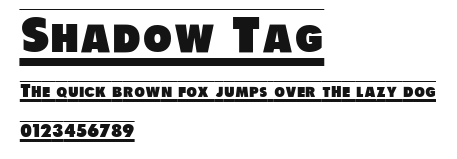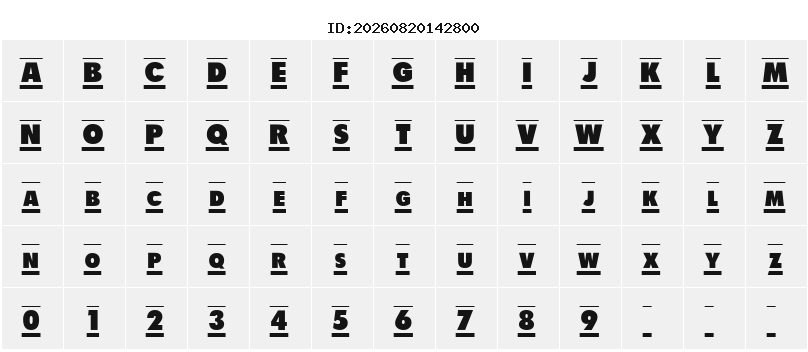
• Font Name: Shadow Tag
• Full Font Name: Shadow Tag
• Copyright: ©1999 - R.Gast - GreyWolf WebWorks (formerly DarkSide Productions)
About Shadow Tag.ttf
Shadow Tag.ttf is a modern, elegant sans-serif font designed for ultimate readability and visual harmony. Perfect for branding, headlines, web design, and print materials.